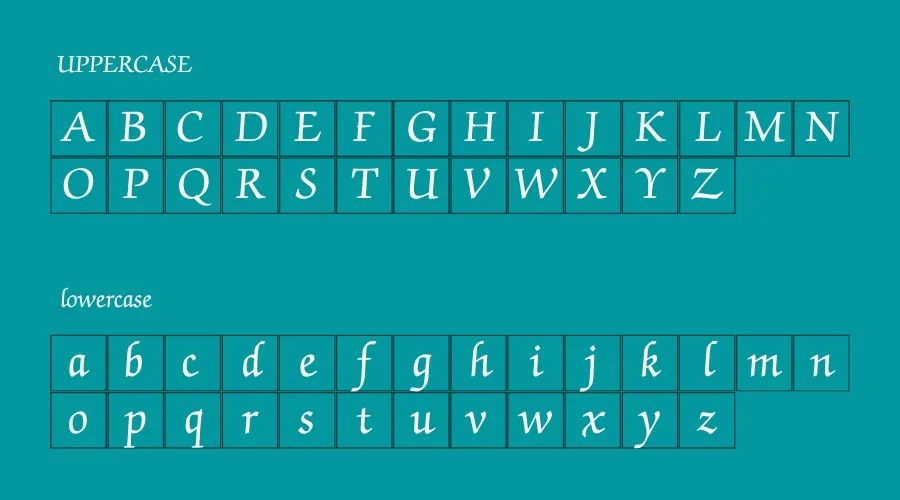
About Itc Zapf Chancery Font
Numerous companies would like to use this font for titles, labels, and blogs in publications, and news publications. Documentations, presentations, diplomas, and many other documents are commonly typeset using Itc Zapf Chancery Font.
Perfect for utilization in e-book cover schemes, cap designs, jacket designs, and different apparel design projects. This fun typeface is furthermore suitable for text design and you can utilize online generator tools.
This display typeface can be used to design advertisements, graphics, and banners. Many well-known YouTubers use this typeface for their titles, and video titles. Due to its sophisticated features, you can also choose to use this typeface for advanced projects.